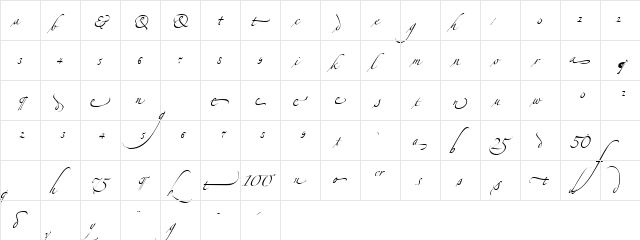
Alexandra Zeferino Ornamental Regular
| Foundry | Gophmann Alexandra Leopoldovna |
| Designer | Alexandra Gophmann |
Design Context for Alexandra Zeferino Ornamental Typeface
Alexandra Zeferino Ornamental brings ornamental detail and strong personality to headlines and identities, where visual impact matters more than quiet functionality.
Font Pairing: Pair with a clean neutral sans-serif for body copy to let Alexandra Zeferino Ornamental's character lead without overwhelming the composition.
Pro Tip: Use Alexandra Zeferino Ornamental exclusively at display sizes — it was designed to be seen, not read at length. Let a neutral companion handle body copy.